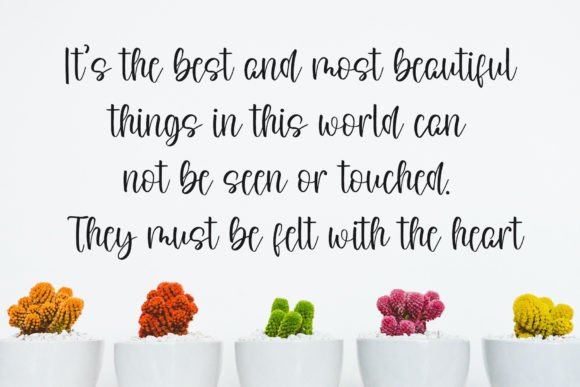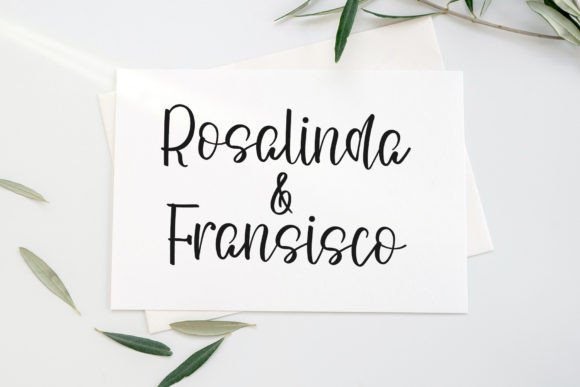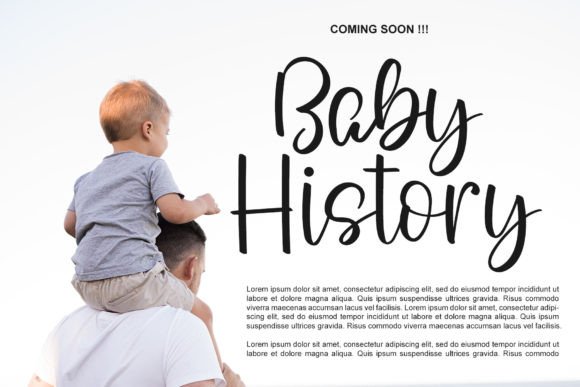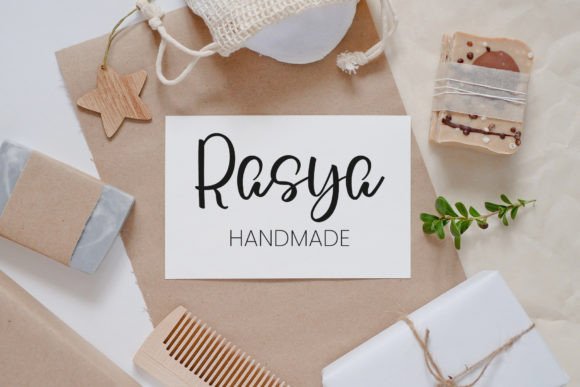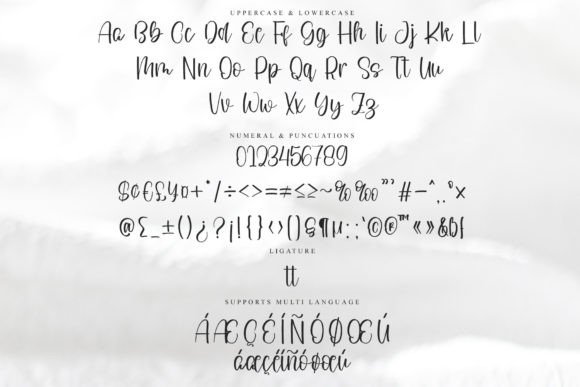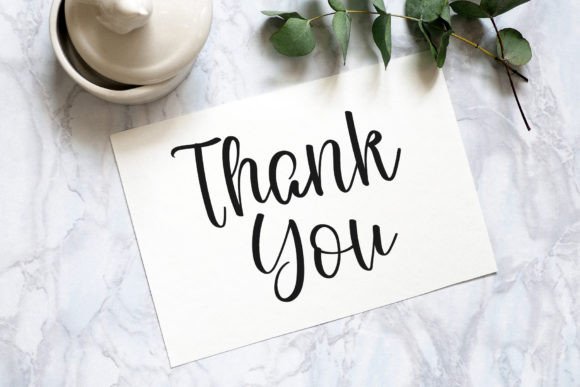
Griswold Font
Griswold Font Download – Stylish Modern Handwritten Script
The Griswold Font download is a stylish and modern handwritten typeface designed to add elegance and romance to your projects. With its smooth strokes and contemporary charm, this font adapts beautifully to a wide spectrum of applications, from greeting cards to packaging and branding. Griswold ensures that your designs stand out with sophistication and warmth.
A Stylish and Modern Handwritten Look
The Griswold Font download combines classic handwritten elegance with a modern twist. Its balanced structure and graceful curves create a polished yet approachable appearance, making it suitable for both personal and professional projects.
Perfect for Greeting Cards and Invitations
Greeting cards, invitations, and event stationery shine with the Griswold Font download. Its romantic strokes add charm and personality, ensuring your designs leave a lasting impression on every occasion.
Great for Branding and Packaging
The Griswold Font download is ideal for logos, labels, and product packaging. Its stylish handwritten form conveys authenticity and creativity, making it especially fitting for lifestyle brands, boutiques, and artisanal products.
Versatile for Posters and Headlines
From posters and headlines to social media graphics, the Griswold Font download adapts seamlessly across print and digital platforms. Its versatile style ensures your projects look professional while still carrying a personal touch.
Readability with Romantic Flair
While many decorative fonts focus on style over clarity, the Griswold Font download strikes the perfect balance. Its neat, well-structured strokes maintain readability while still adding expressive handwritten charm.
Why Choose Griswold Font?
Among handwritten typefaces, the GriswoldFont download stands out with its stylish design, romantic energy, and modern adaptability. It is suitable for greeting cards, branding, and packaging, making it a reliable and versatile choice.
Add Romantic Elegance to Your Designs
Typography shapes the feel of your work, and the GriswoldFont download helps you communicate style, romance, and creativity. Whether for stationery, logos, or packaging, this font ensures your designs shine with modern handwritten beauty.